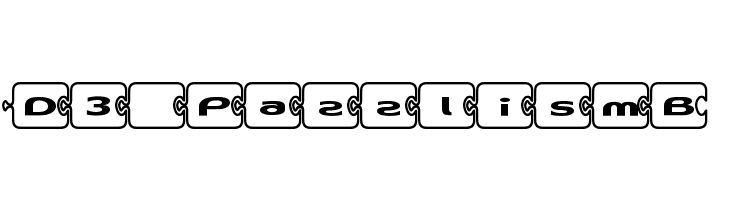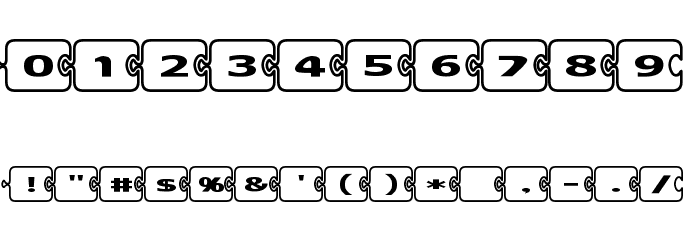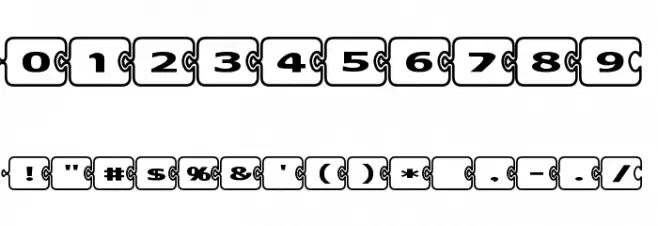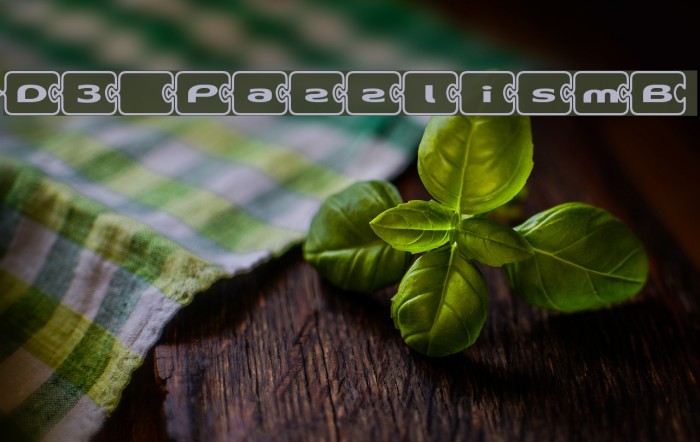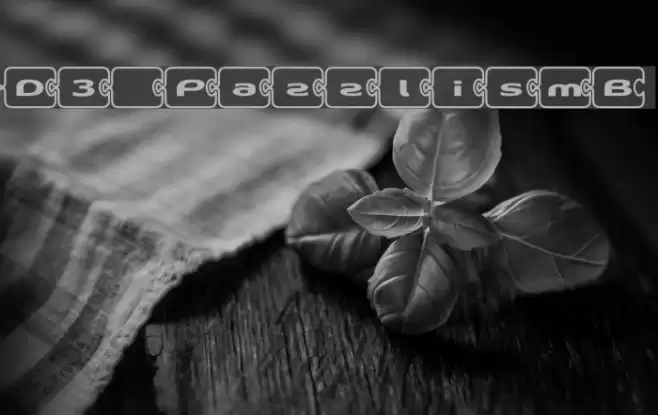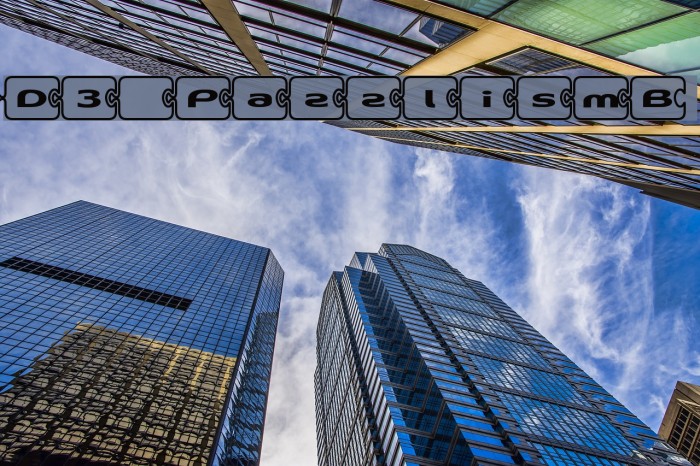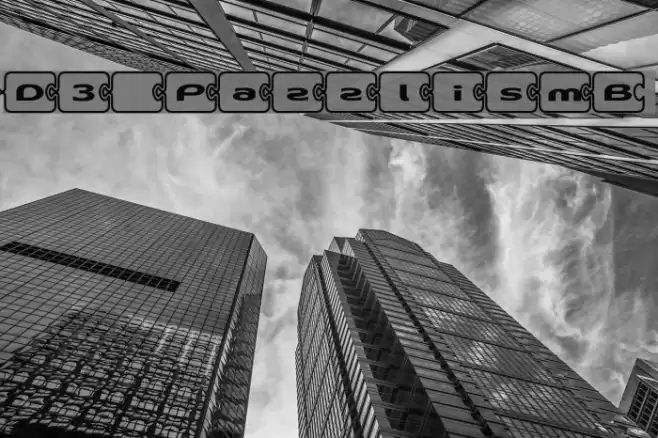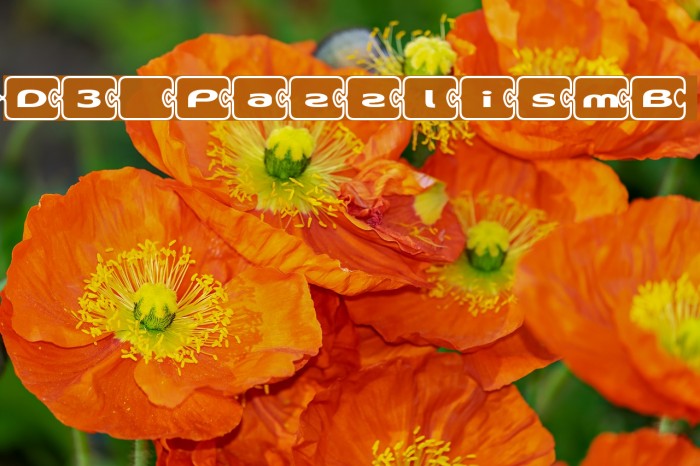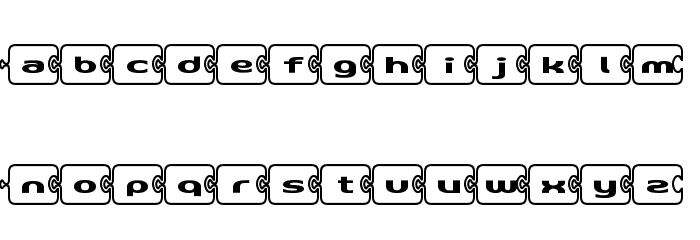
D3 PazzlismB Font
D3 PazzlismB Description
This font features a unique puzzle-like design where each character is enclosed within a square block, connected to adjacent blocks by interlocking pieces. The characters are bold and geometric, with a playful yet structured appearance. The uppercase and lowercase letters maintain a consistent style, with rounded edges and a uniform thickness. Numbers and special characters follow the same design principle, ensuring a cohesive look across all elements. This font's distinctive style makes it ideal for creative and playful projects, offering a modern twist on traditional block lettering.
| Overall Style | Modern, Playful |
| Use Case | Logos, Headlines, Posters |
| Proposed Projects | Ideal for children's books, educational materials, game designs, and playful branding. |